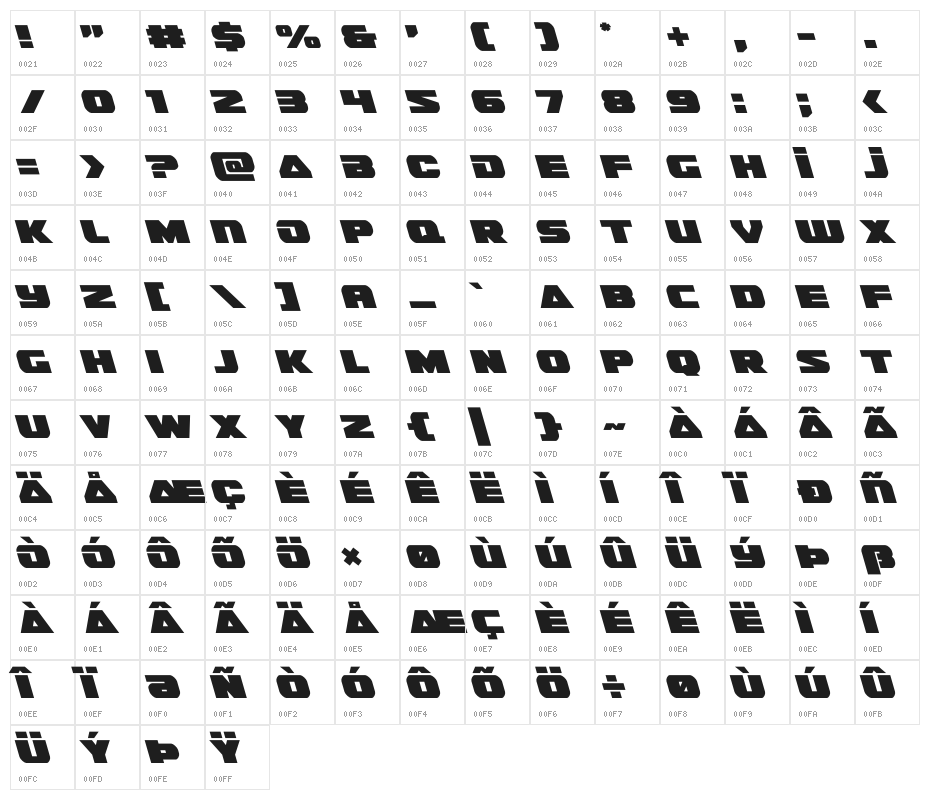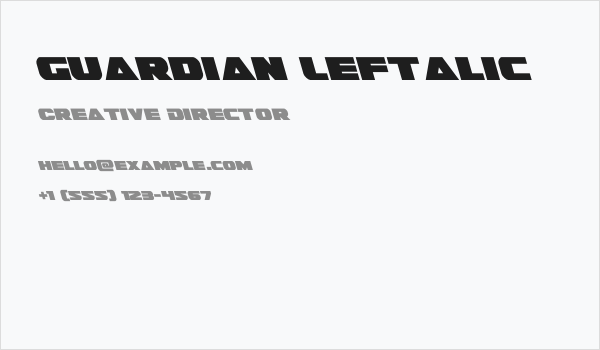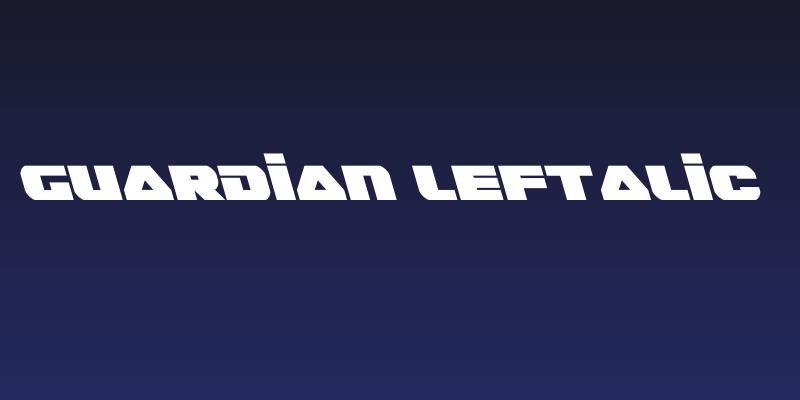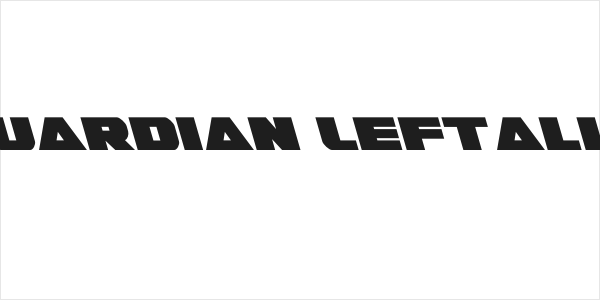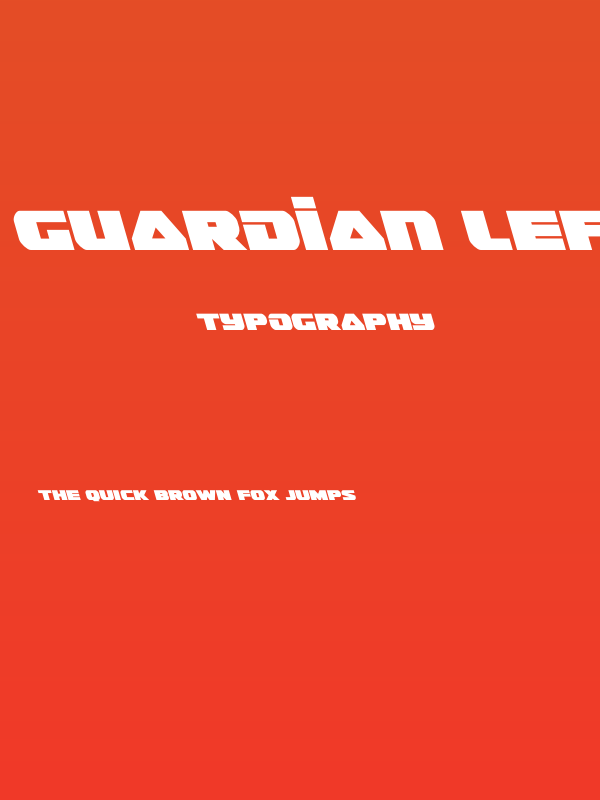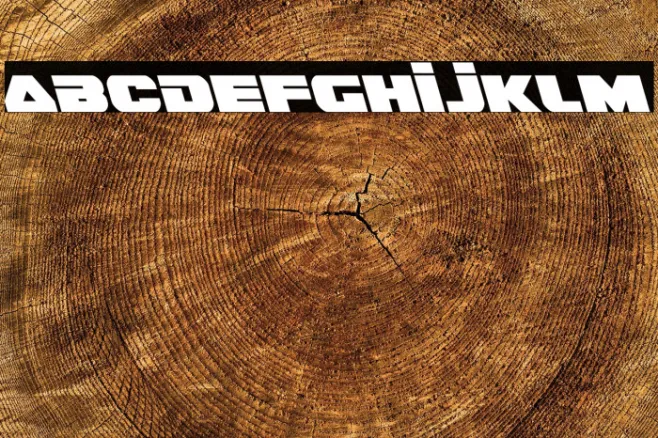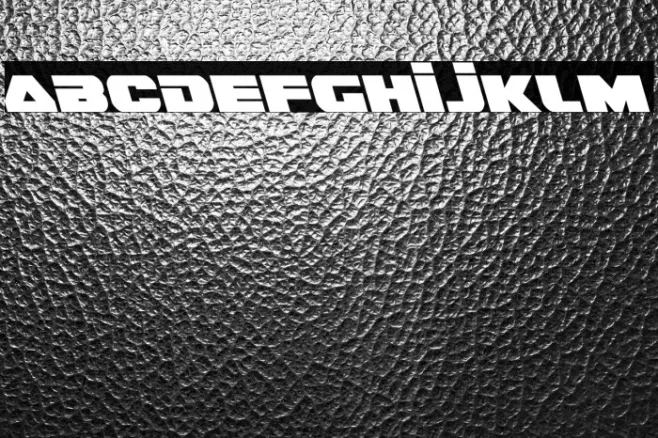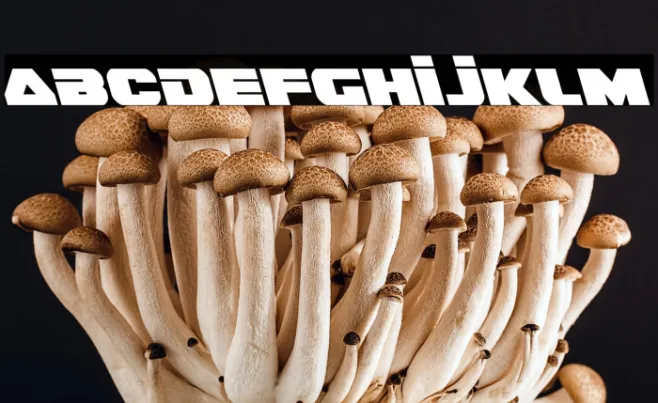
Guardian Leftalic Font
Guardian Leftalic Description
This font exhibits a bold, angular style with a futuristic and dynamic appearance. The characters are heavily stylized with sharp edges and a slanted orientation, giving a sense of movement and speed. The uppercase and lowercase letters maintain a consistent geometric form, while the numbers and special characters follow the same design principles. The font's thick strokes and solid structure make it highly visible and impactful, suitable for attention-grabbing designs.
| Proposed Projects | Ideal for sci-fi themed projects, video game titles, sports branding, and dynamic posters. |